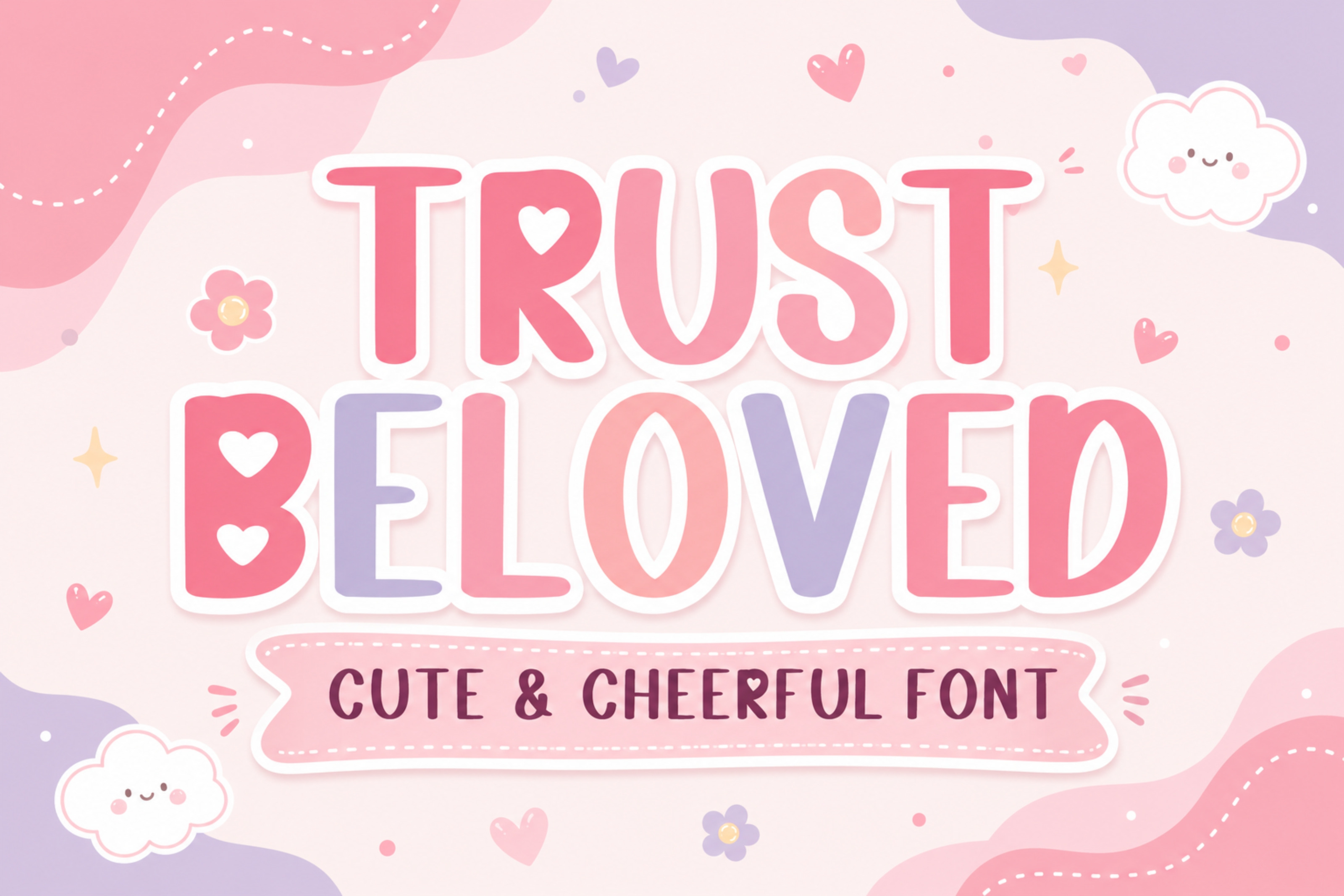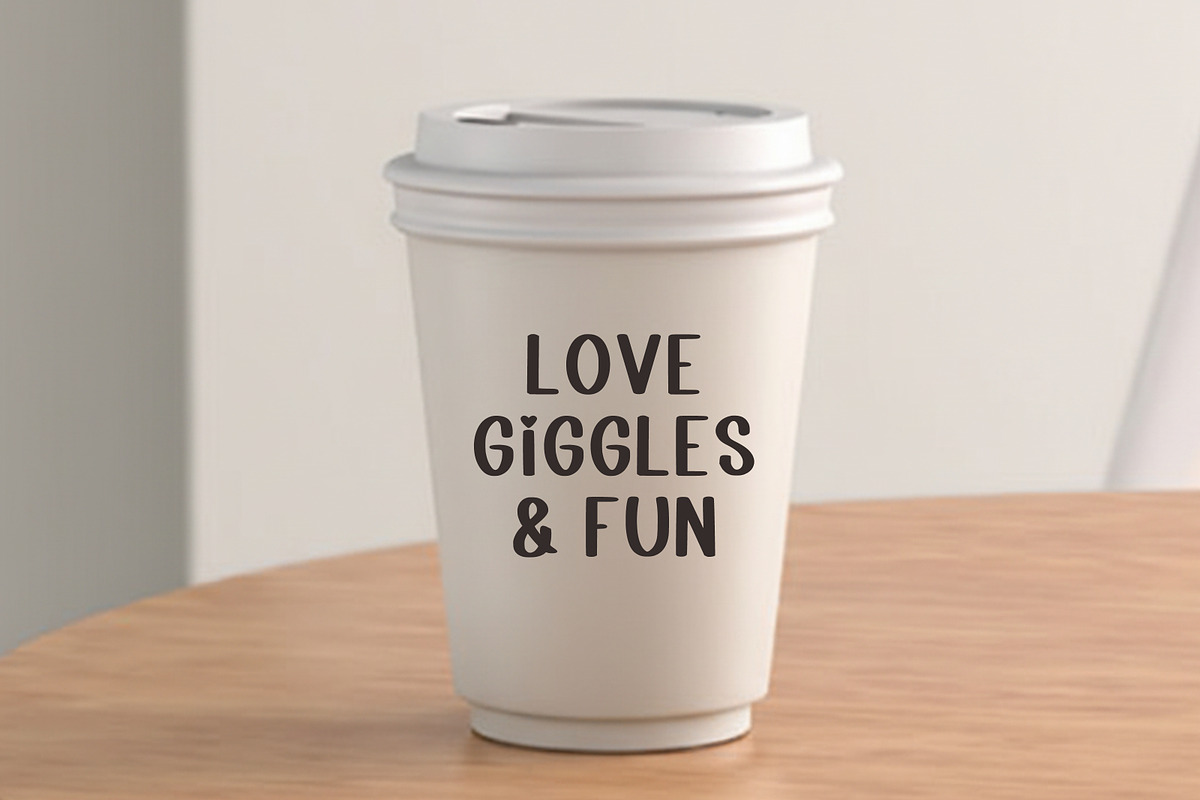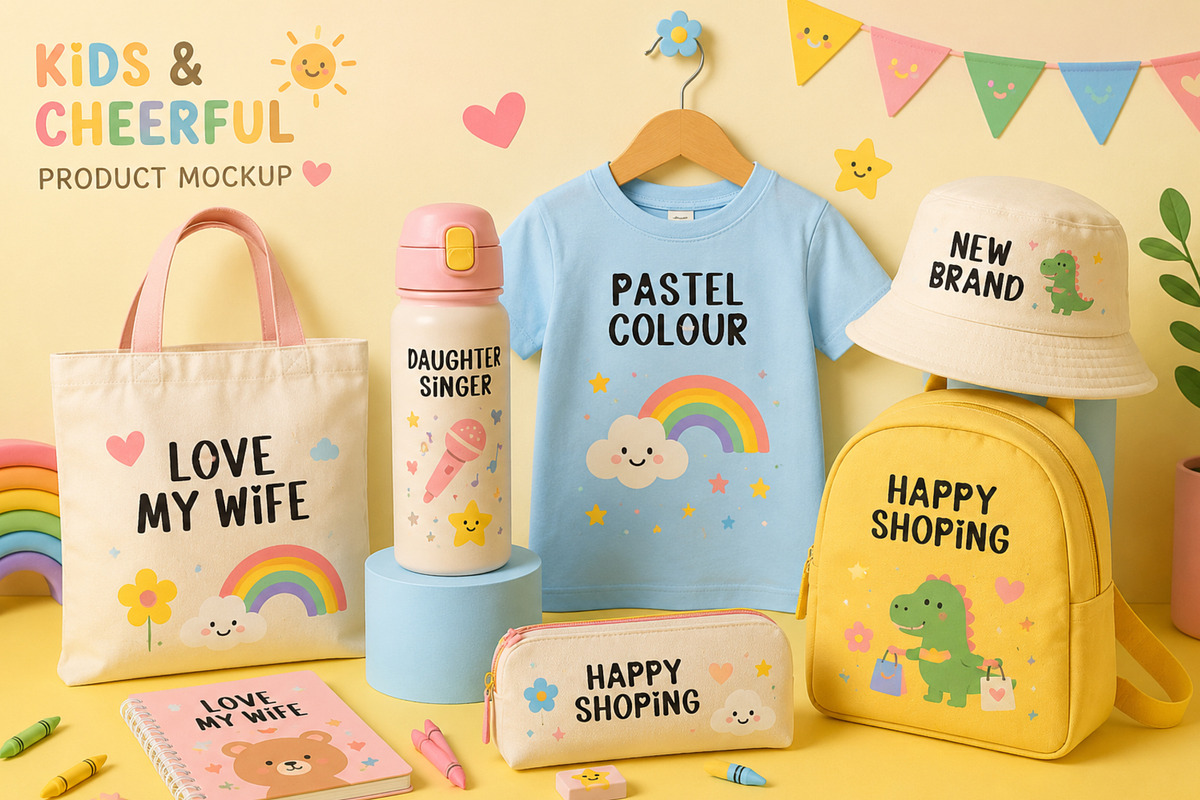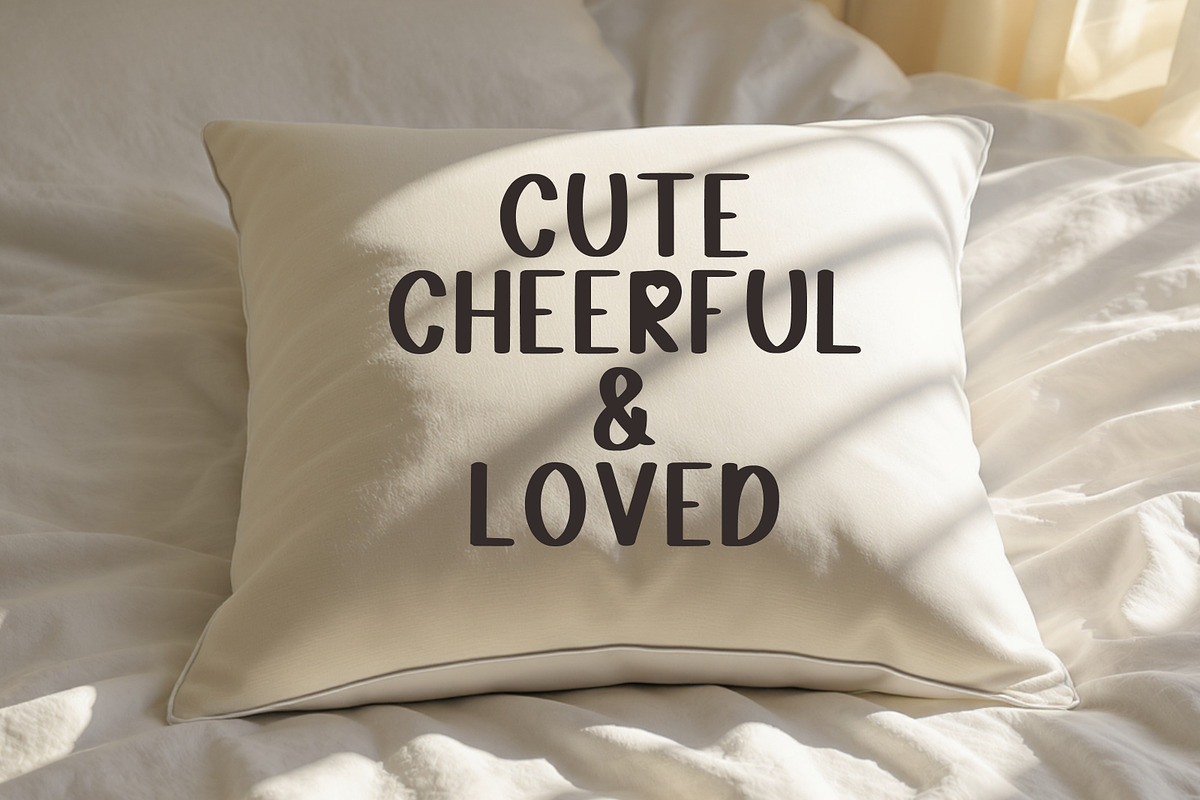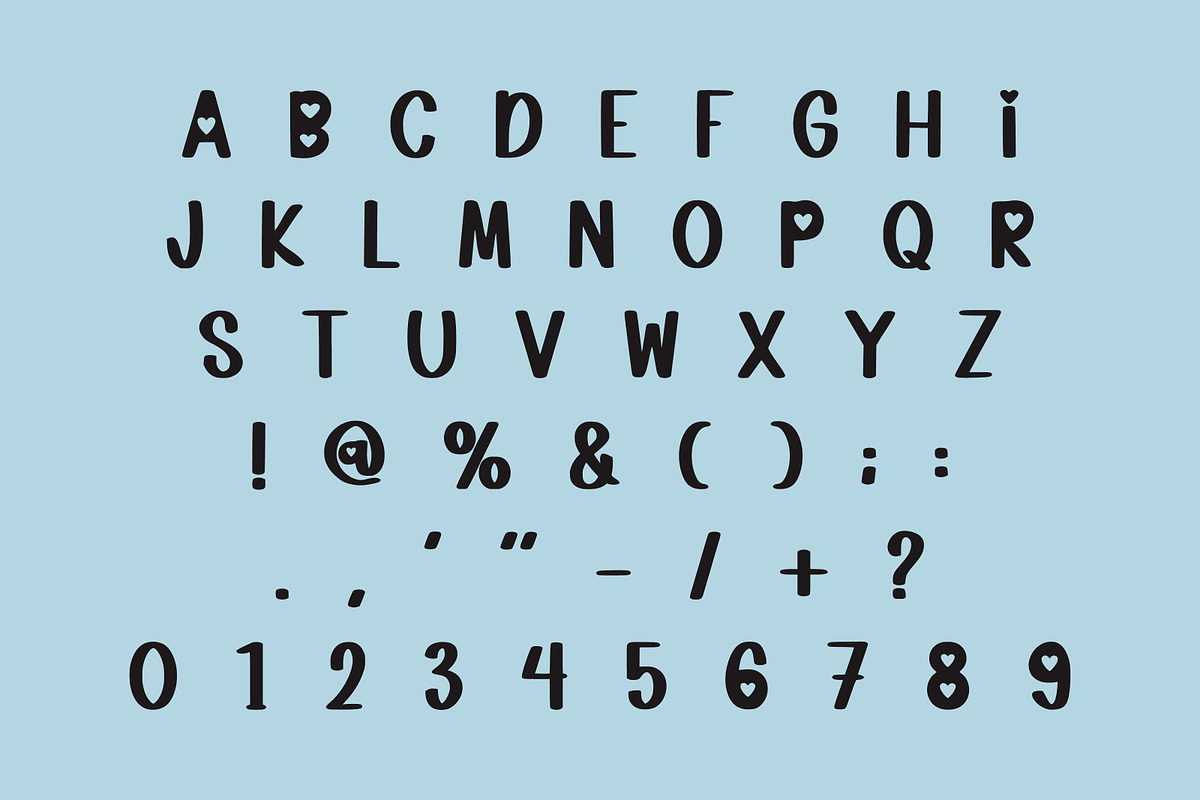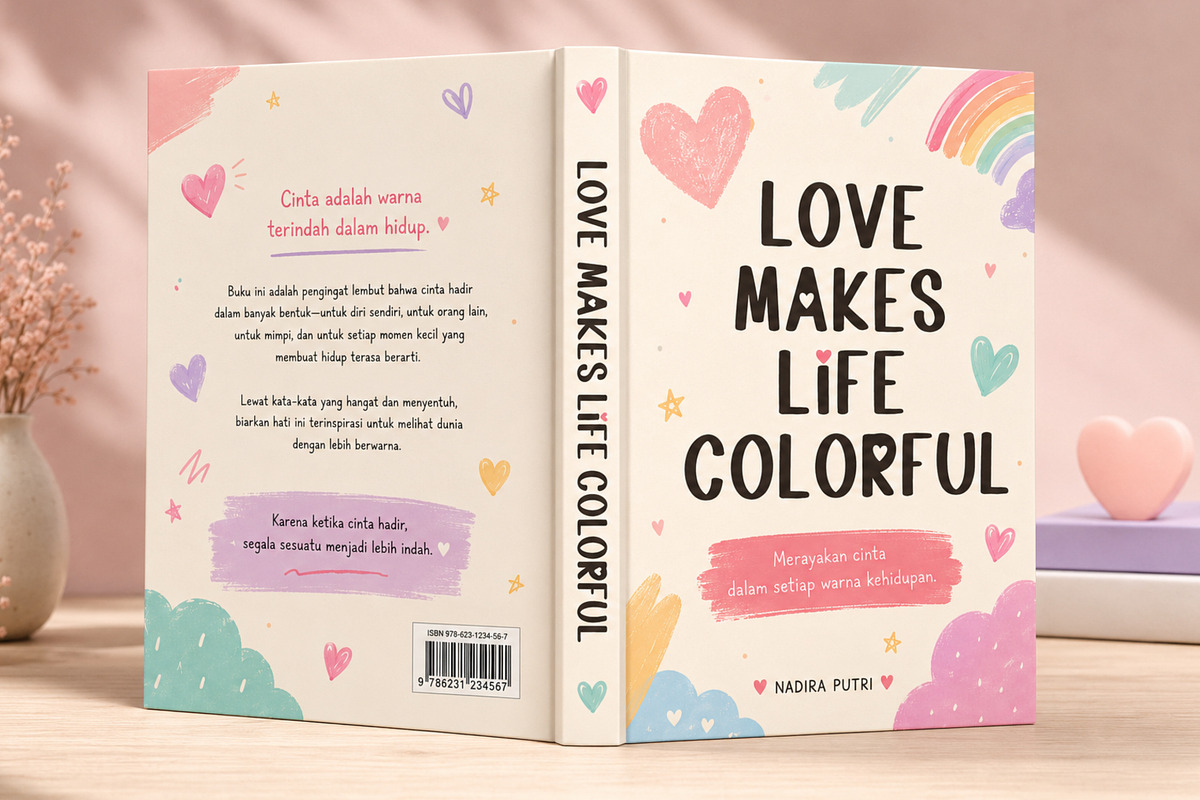
Trust Beloved – Cute & Cheerful Font
Trust Beloved is a sweet and cheerful display font designed to spread warmth, happiness, and love. Featuring soft rounded letterforms, playful heart details, and a friendly handcrafted style, this font is perfect for creating eye-catching designs for kids, Valentine's Day, baby products, social media, branding, packaging, greeting cards, and more. Its adorable personality makes every project feel fun, lovable, and memorable.
Uppercase Letters
Cute Handcrafted Style
Heart-Inspired Letter Details
Perfect for Print & Digital Designs
Valentine's Day Designs
Kids Branding
Baby Shower Invitations
Greeting Cards
Stickers
T-Shirt Designs
Tote Bags
Mug Designs
Social Media Posts
YouTube Thumbnails
Packaging
Craft Projects
Printable Quotes
Nursery Decor
Wedding Decorations
Birthday Invitations
DIY Projects